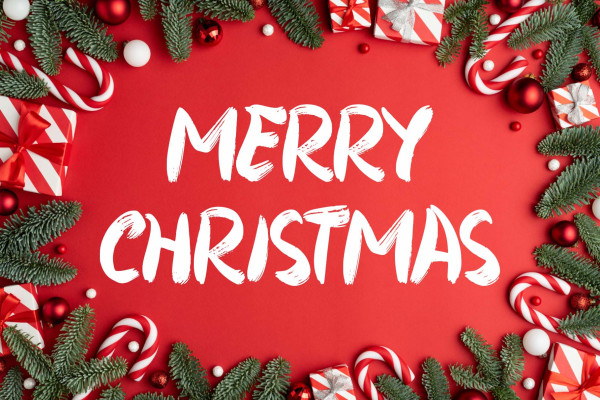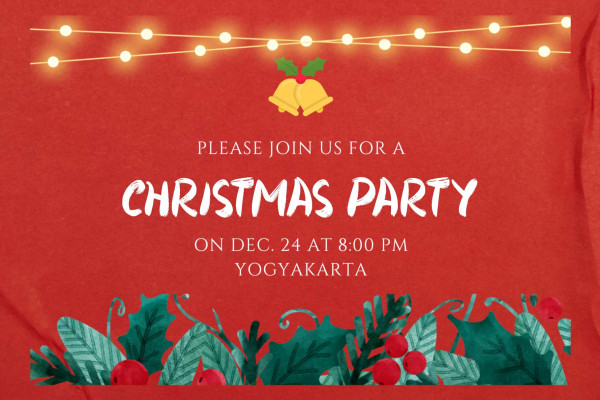
Christmas Brush Font
Christmas Brush Font is a brush font that is perfect for Christmas moments. Besides that, it can also be used for summer, graduation, 4th of July moments, banners, posters, branding, stickers, and more. This font is equipped with uppercase, lowercase, numerals, punctuation, and multilingual support.